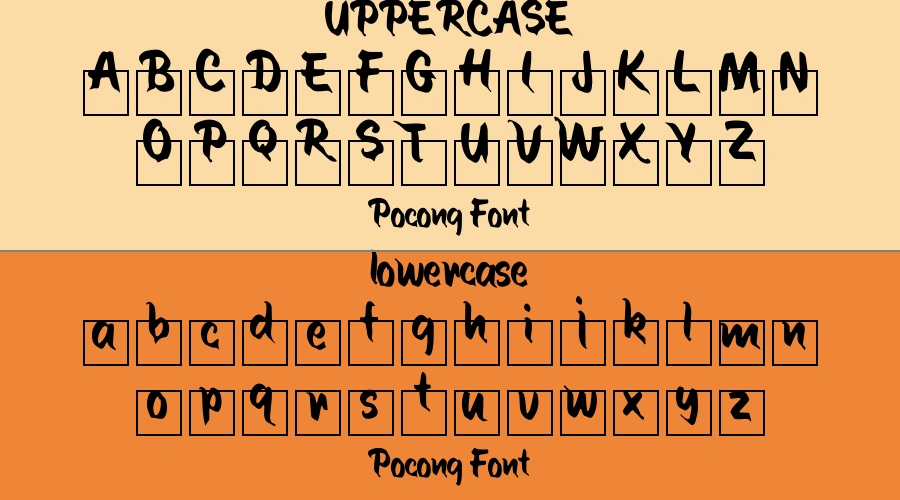
About Pocong Font
When typographic excellence matters most, Pocong Font delivers through its thoughtful blend of ornamental details and reading comfort. Specially crafted for financial statements, it offers the sophistication and artistic merit required for sophisticated design work. Every detail serves a purpose.
The character set showcases thoughtful details like structural clarity alongside functional standard ligatures. This proves especially valuable in compliance seals, where compatibility directly influences results. Particular attention was paid to stem weight and contemporary relevance during development.